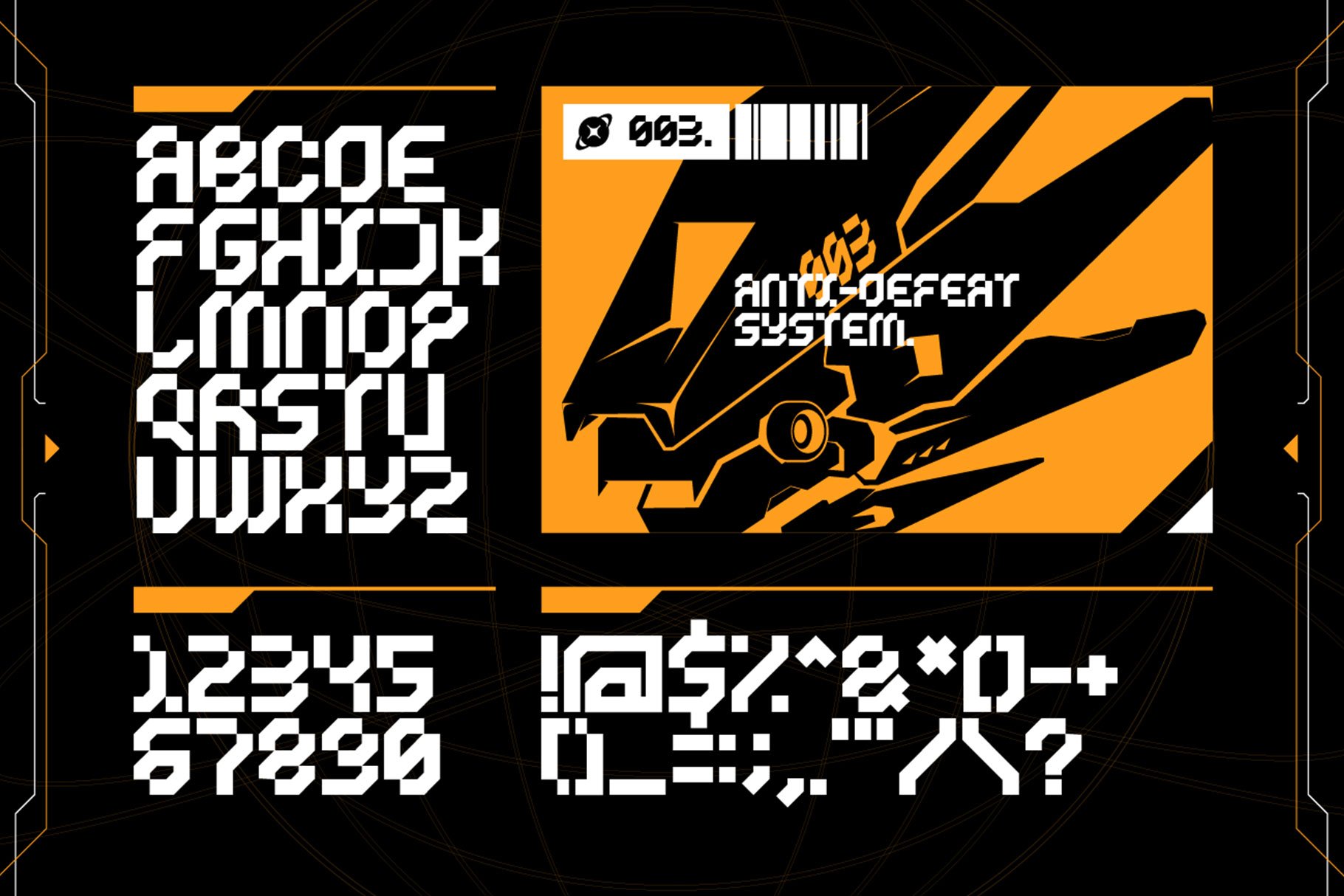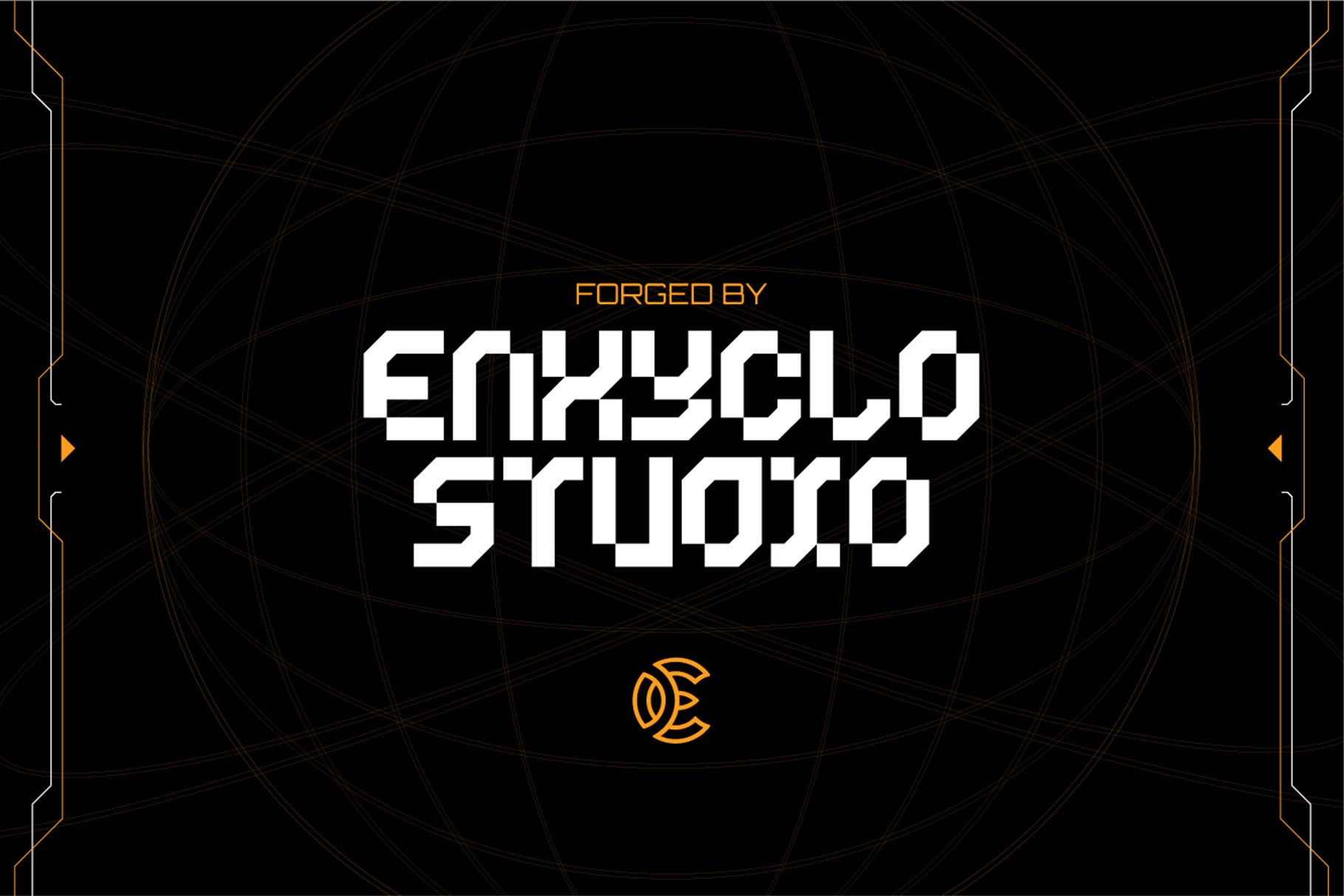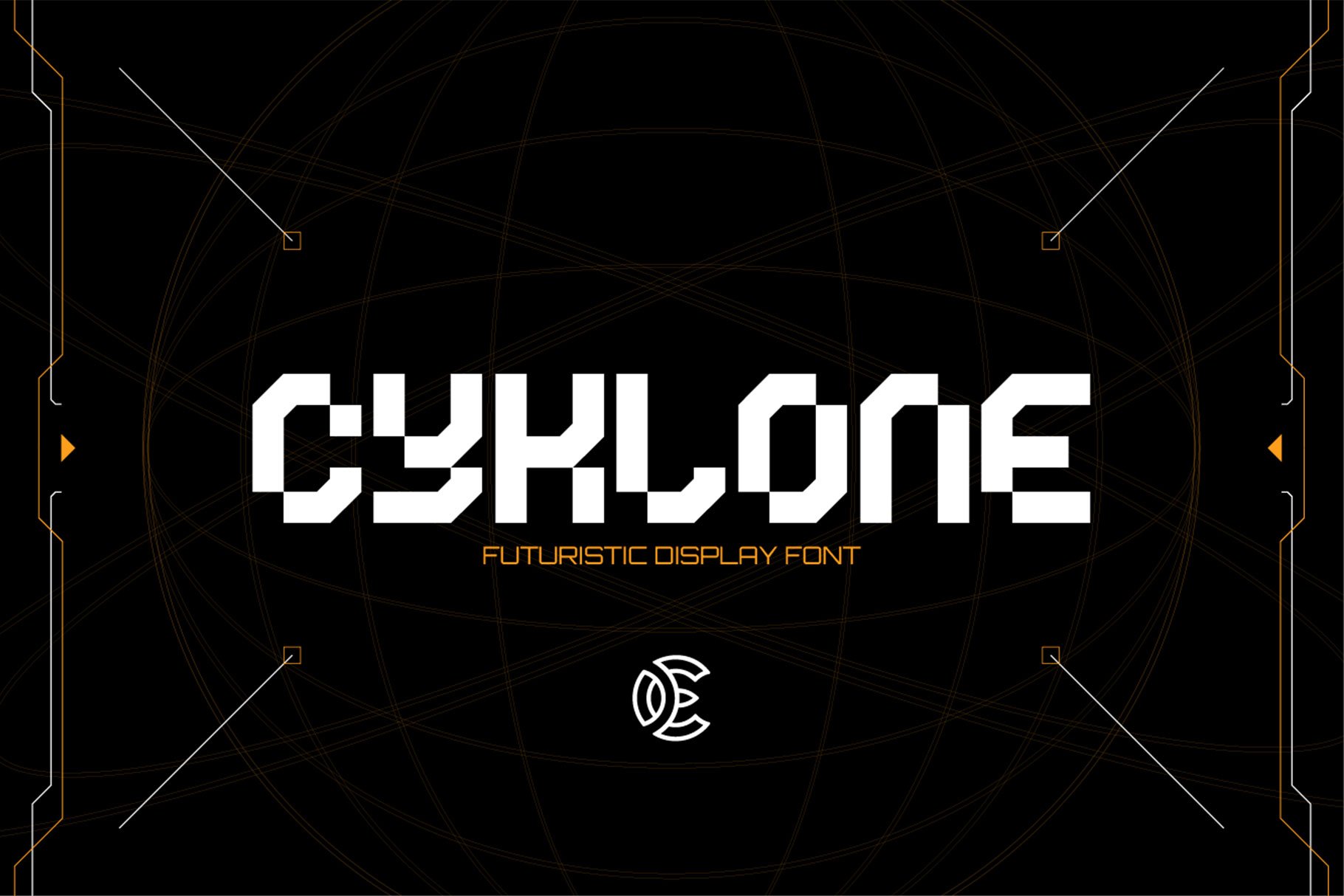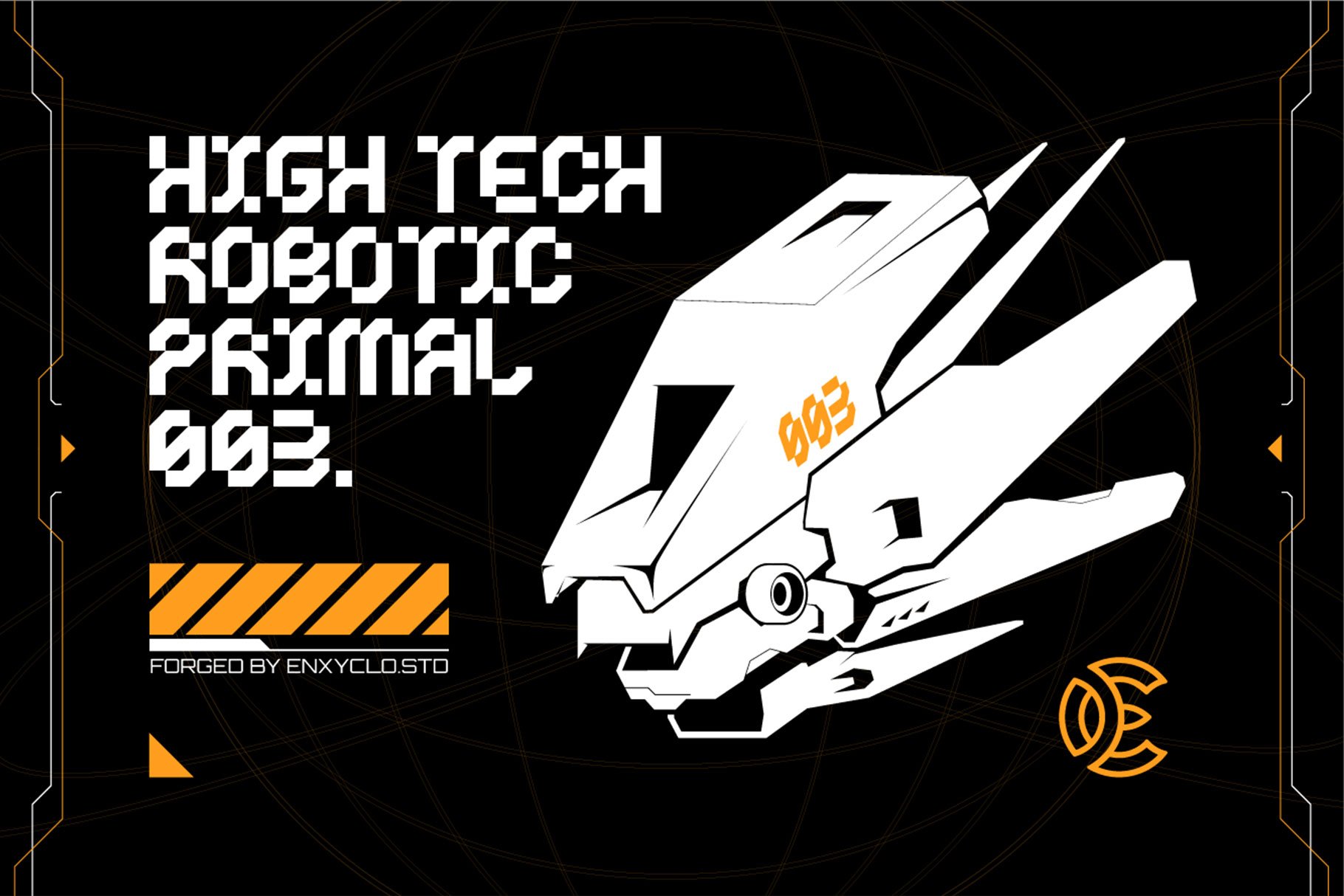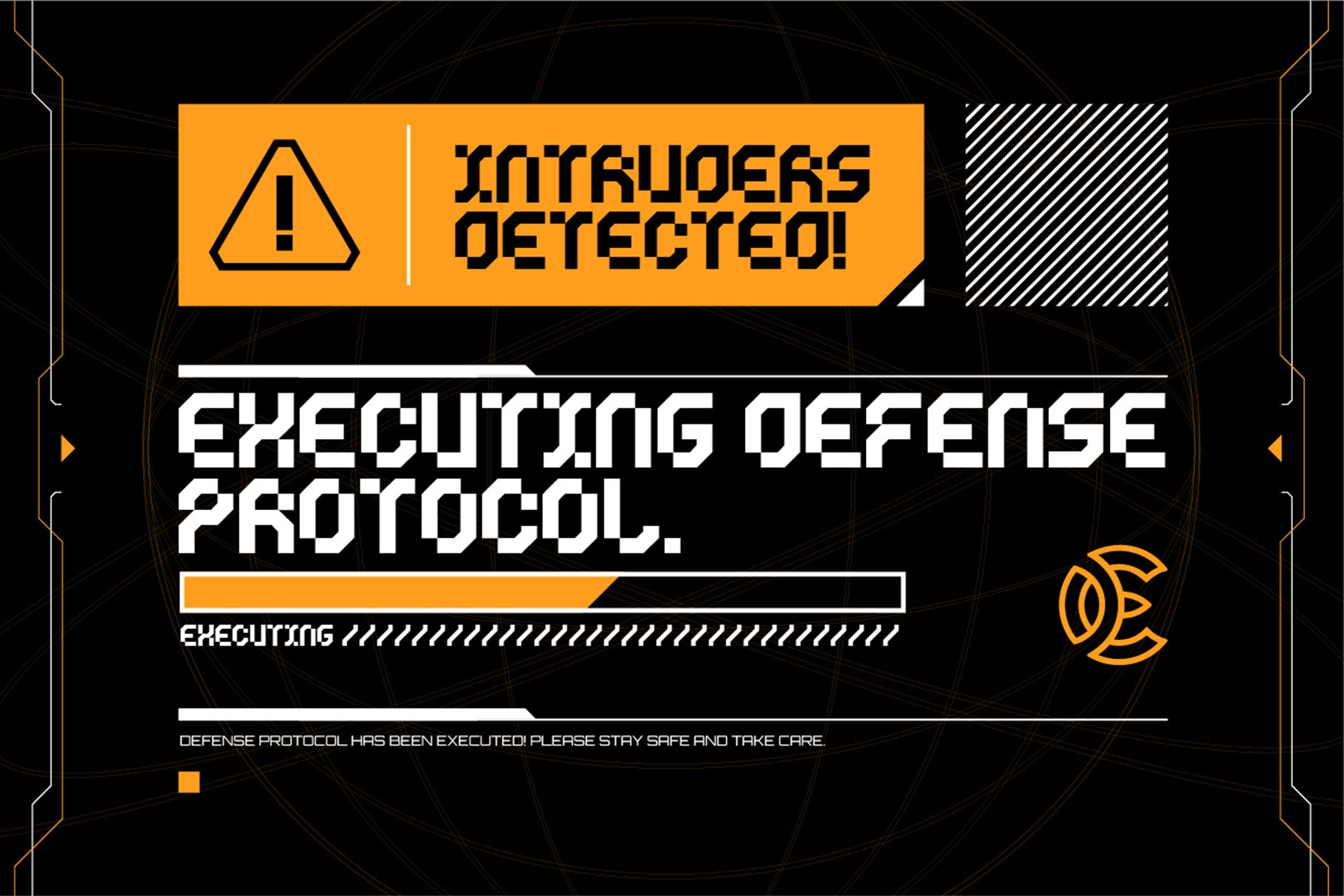
CYKLONE is futuristic display font. The design of typeface will make your project more powerful and inspiring. It is perfect for headline, billboard, magazines, website, titles, poster, branding, thumbnail, t-shirt design, street wear design, and creative logos, or any project that needs futuristic touch. With this beautiful futuristic display font, absolutely you can make your project stand out from the rest. See the previews above to get some inspiration on how to use them.